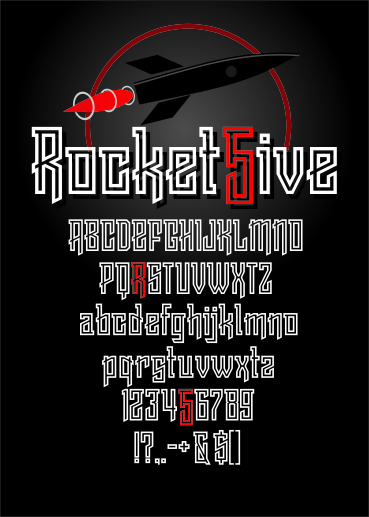
Rocket 5ive
by elzero
Congratulations! FontStruct Staff have deemed your FontStruction worthy of special mention. “Rocket 5ive” is now a Top Pick.
Awesome work! 10/10+fav
Really nice retro spacefont! Just a bit late for Cosmonautics Day (https://en.wikipedia.org/wiki/Cosmonautics_Day), the 55th anniversary of Yurij Gagarins space flight.
10/10 + fave
One little thing: Your 5 is the only numeral that reaches below the baseline like an old style numeral. Maybe your 3 and perhaps 9 should descend a bit as well.
Excellent!
Awesome work!
That's good. I like this font.
I LOOOOOOOOOOVE the diagonal lines! 10/10!